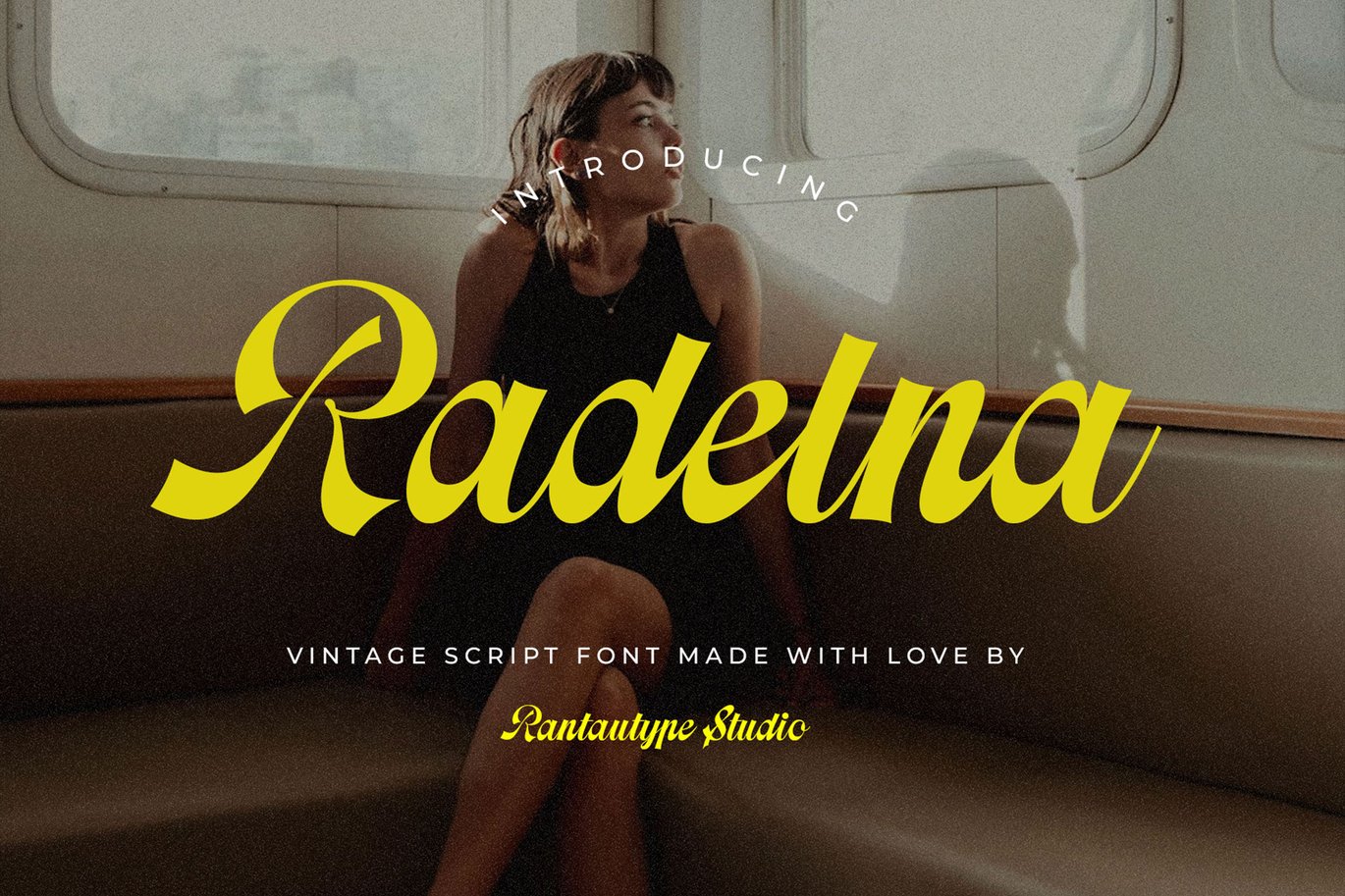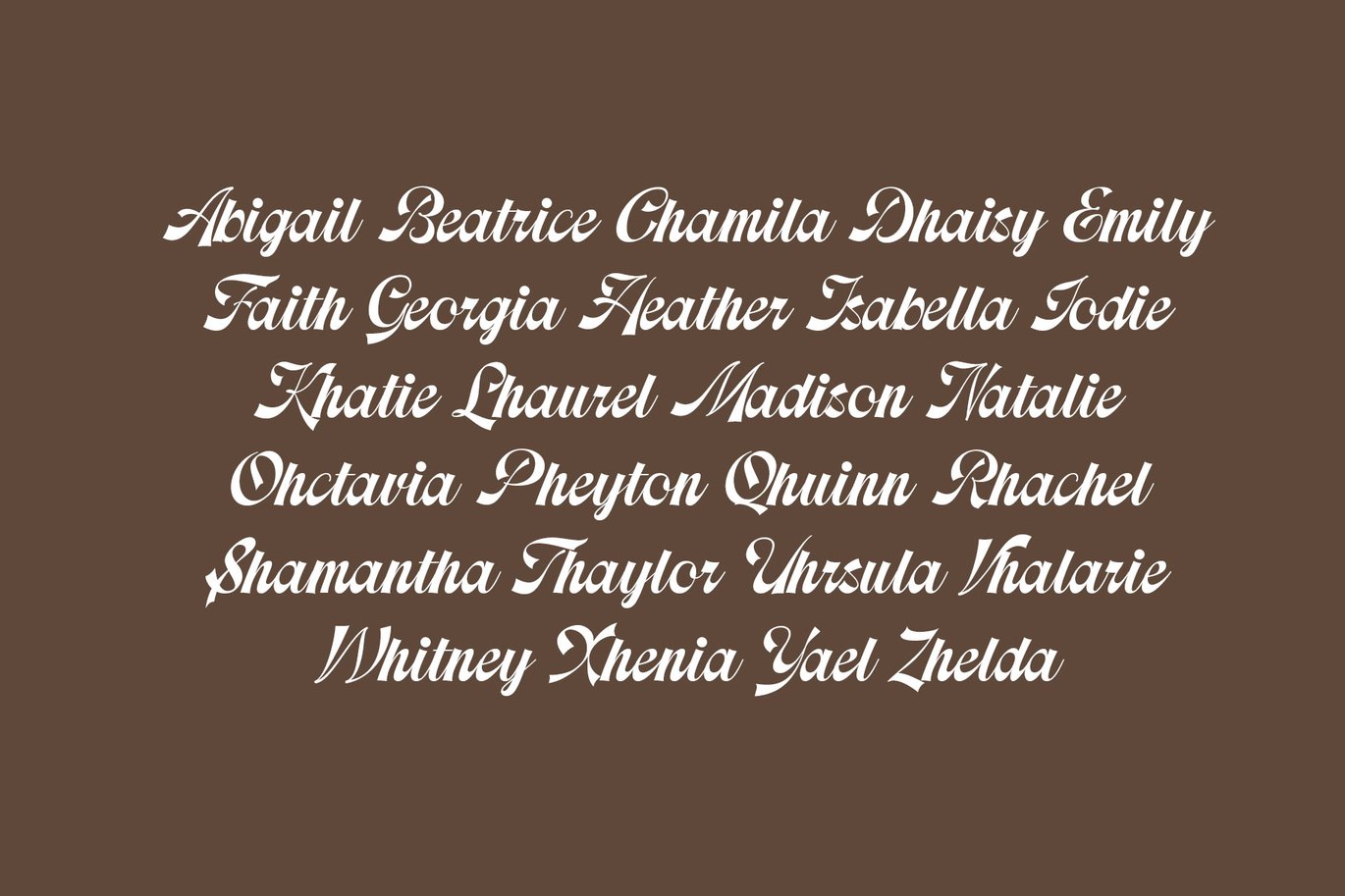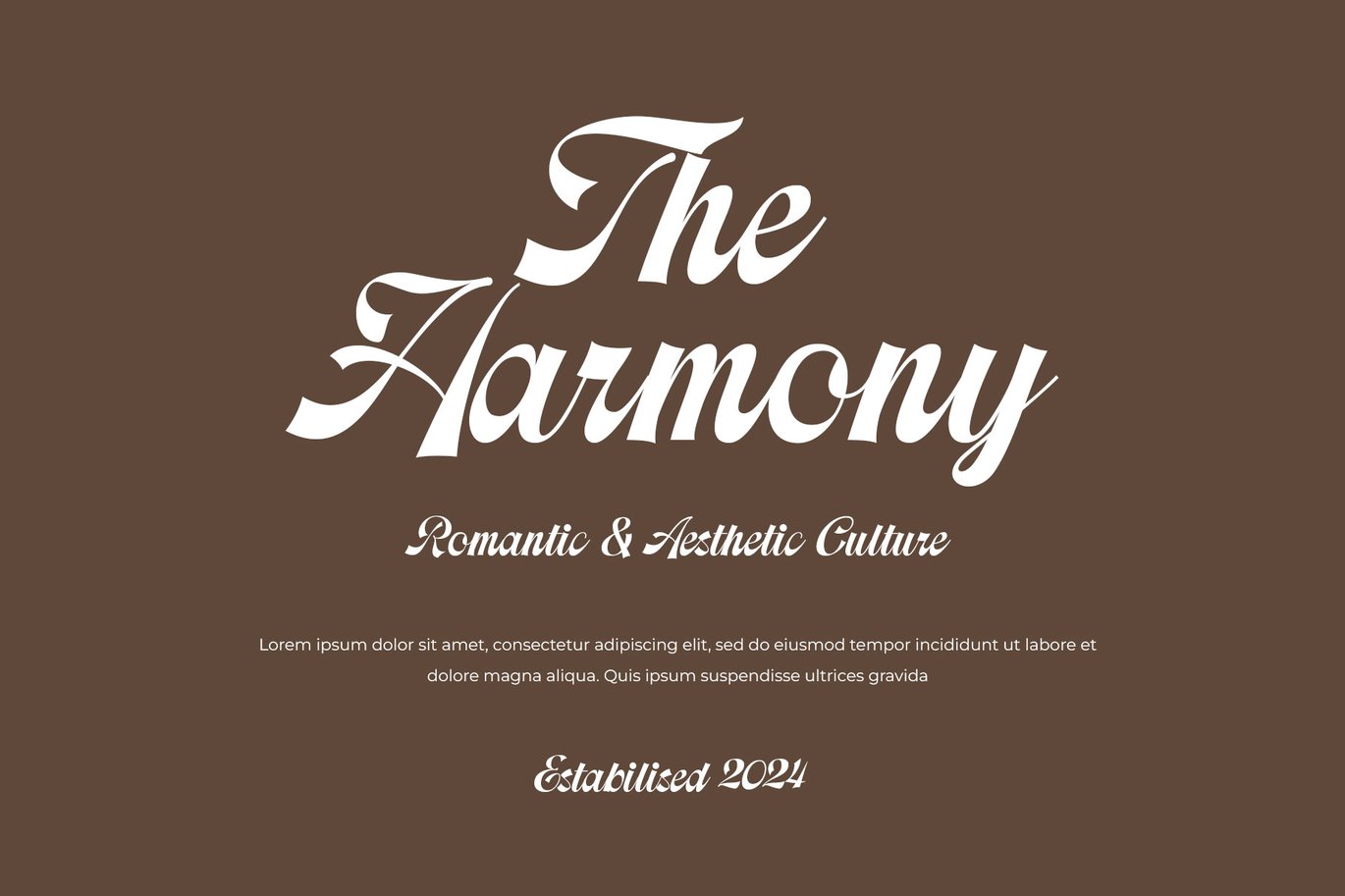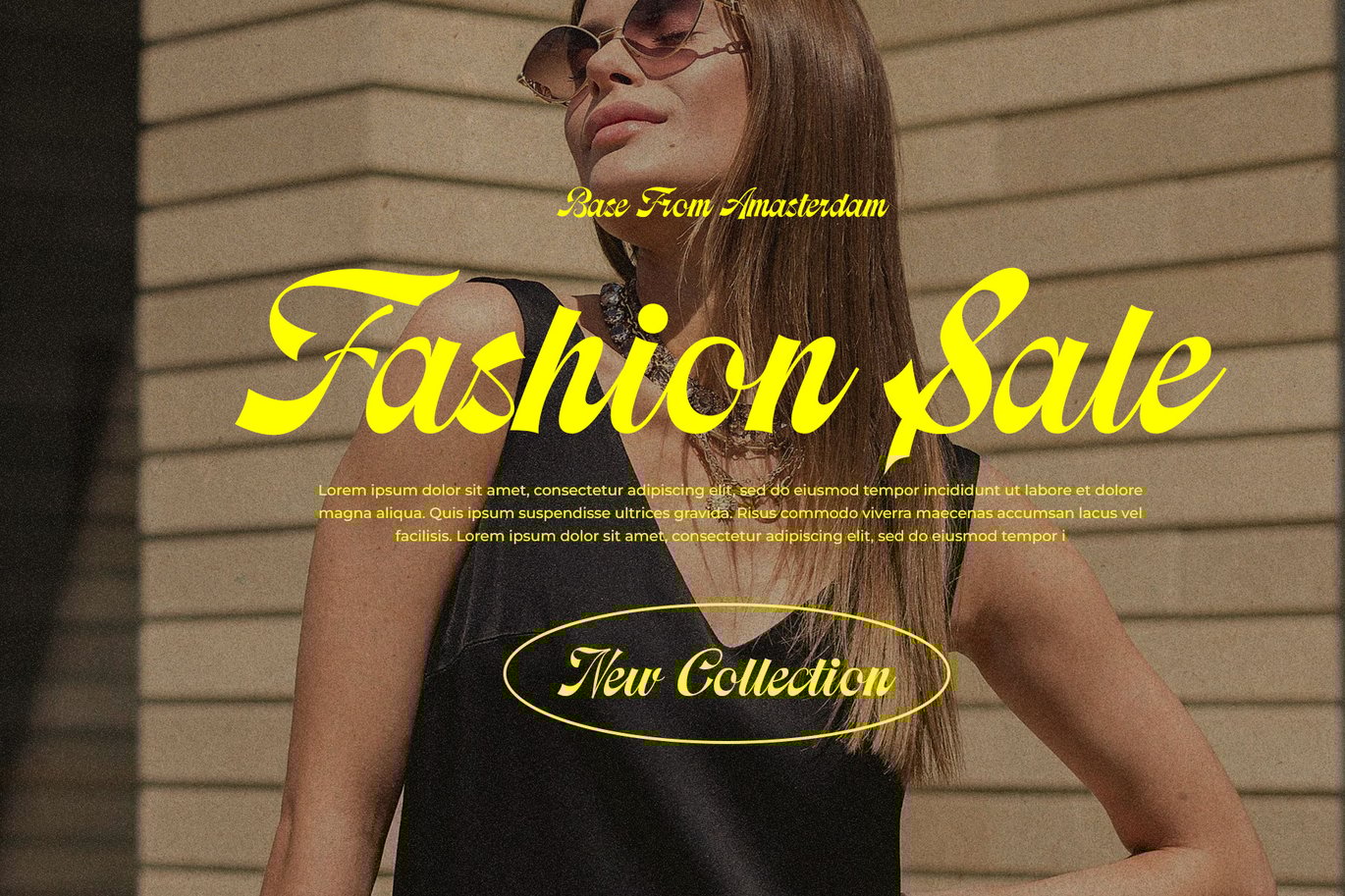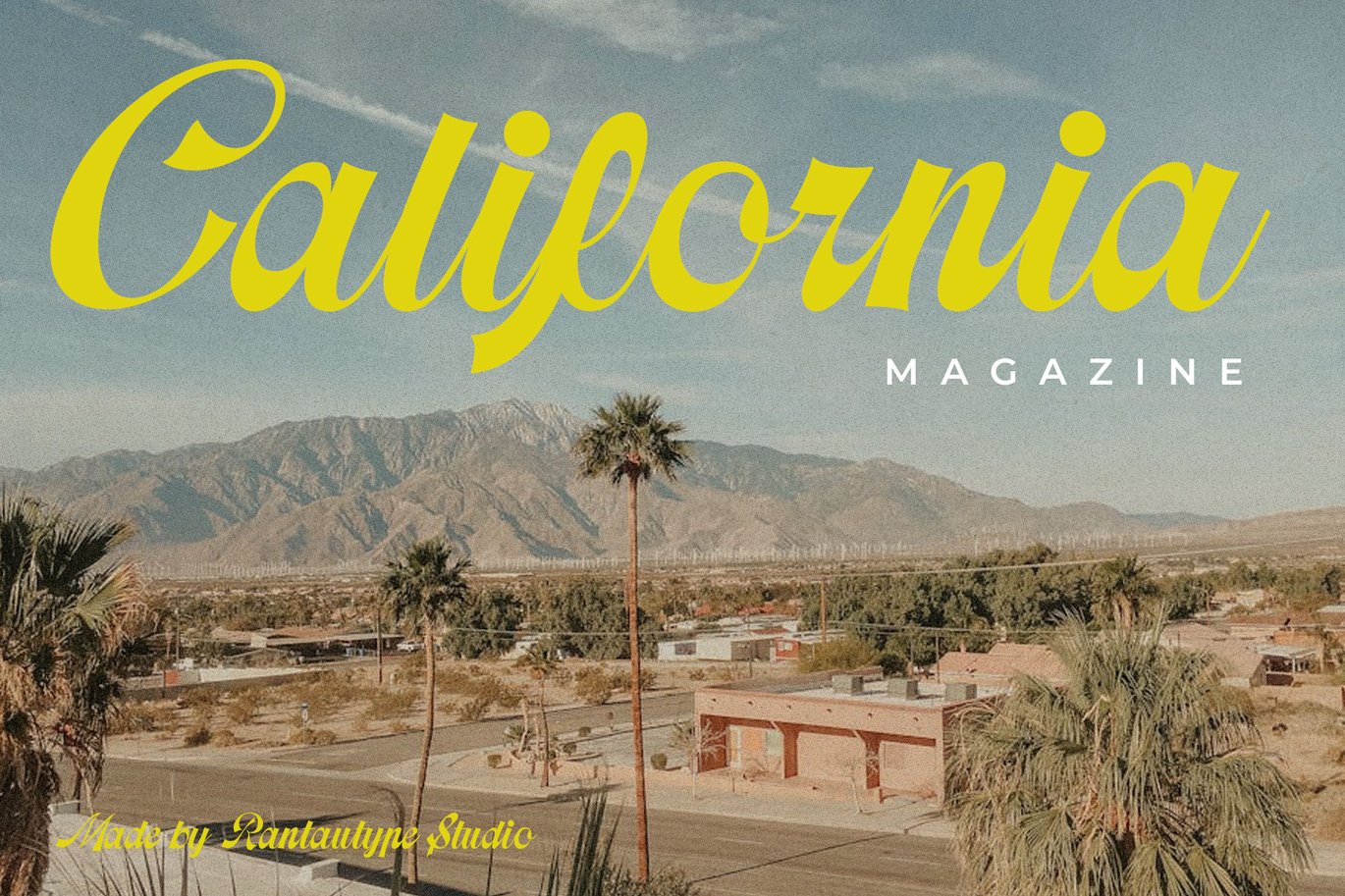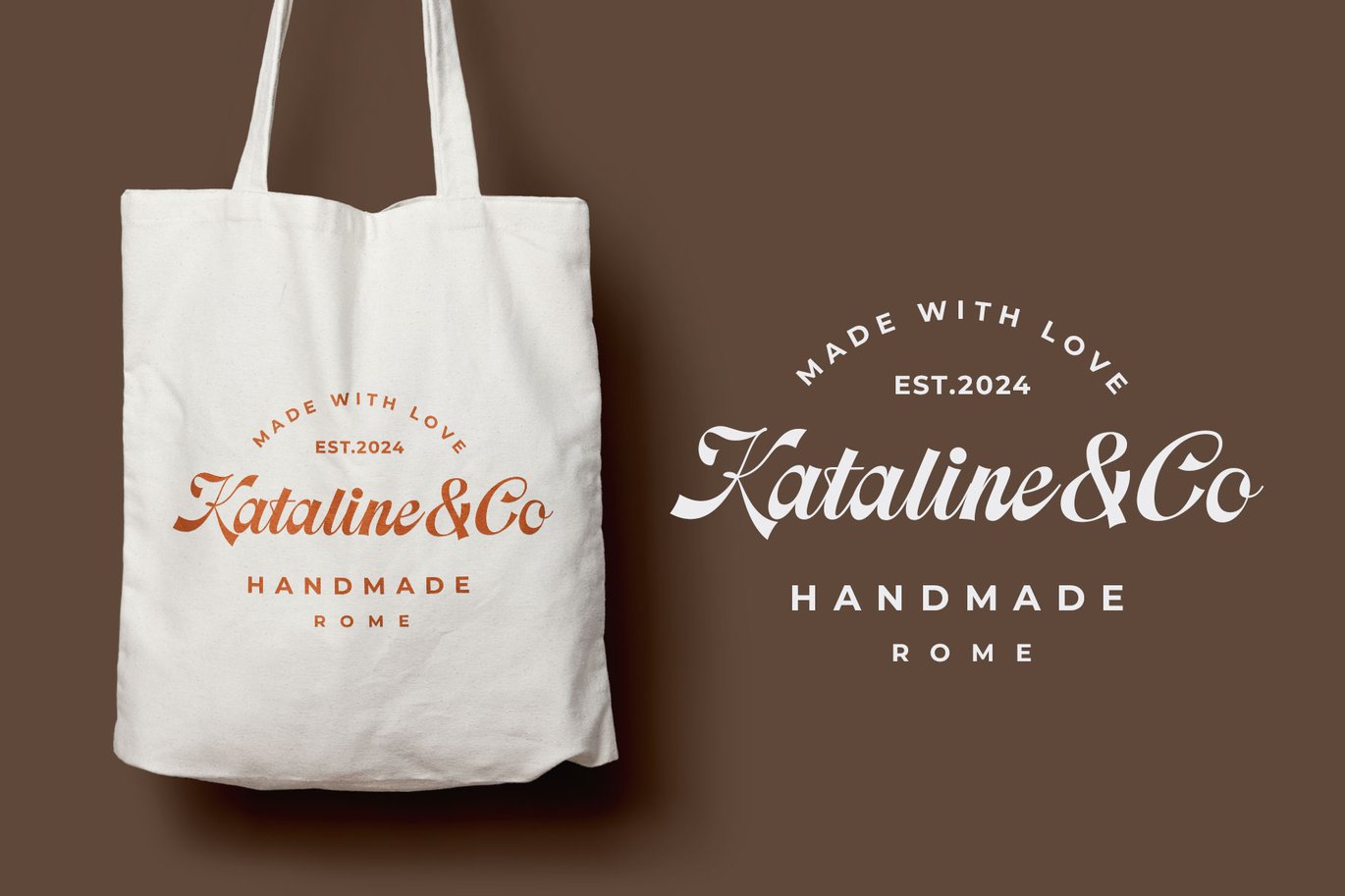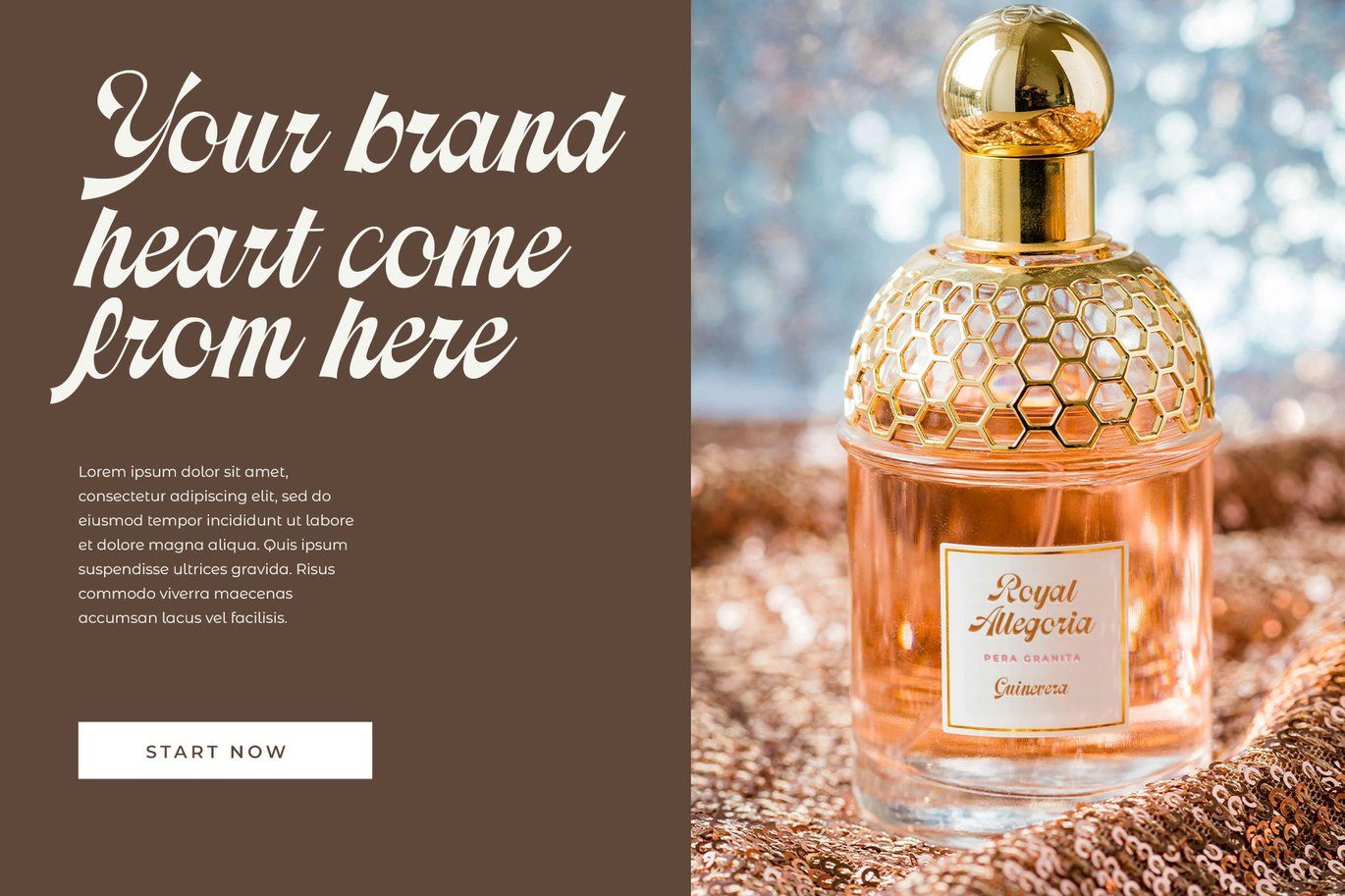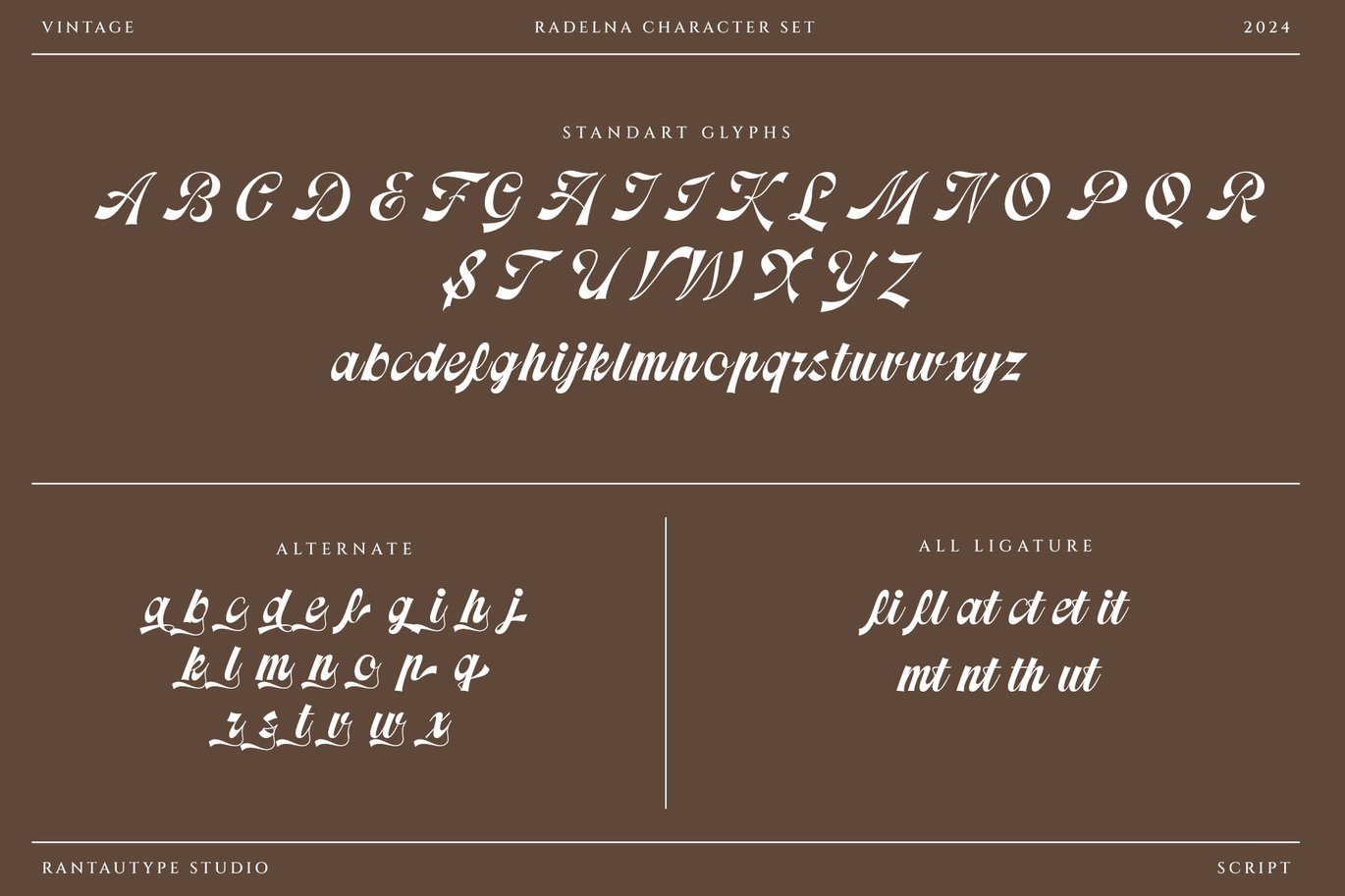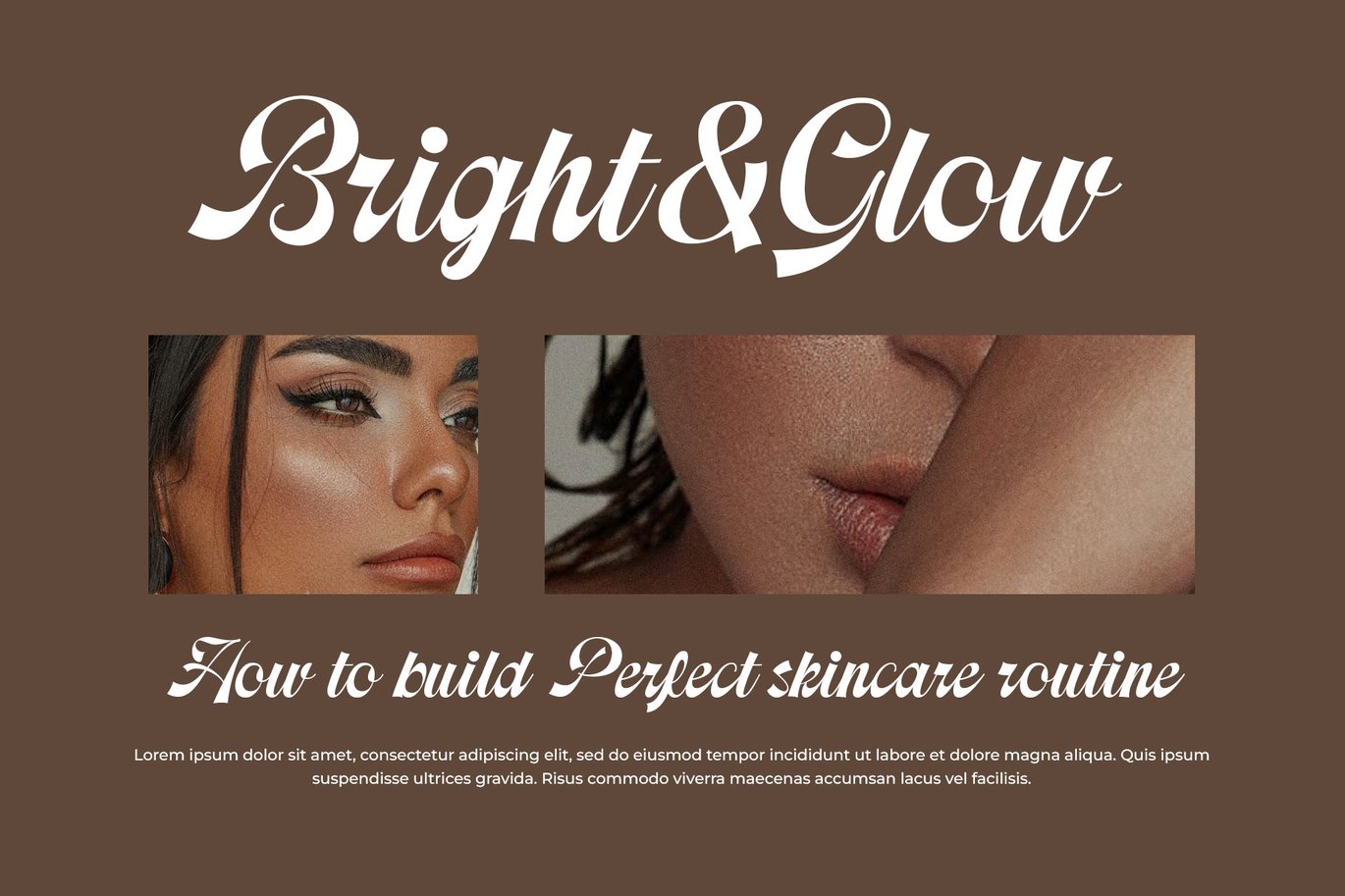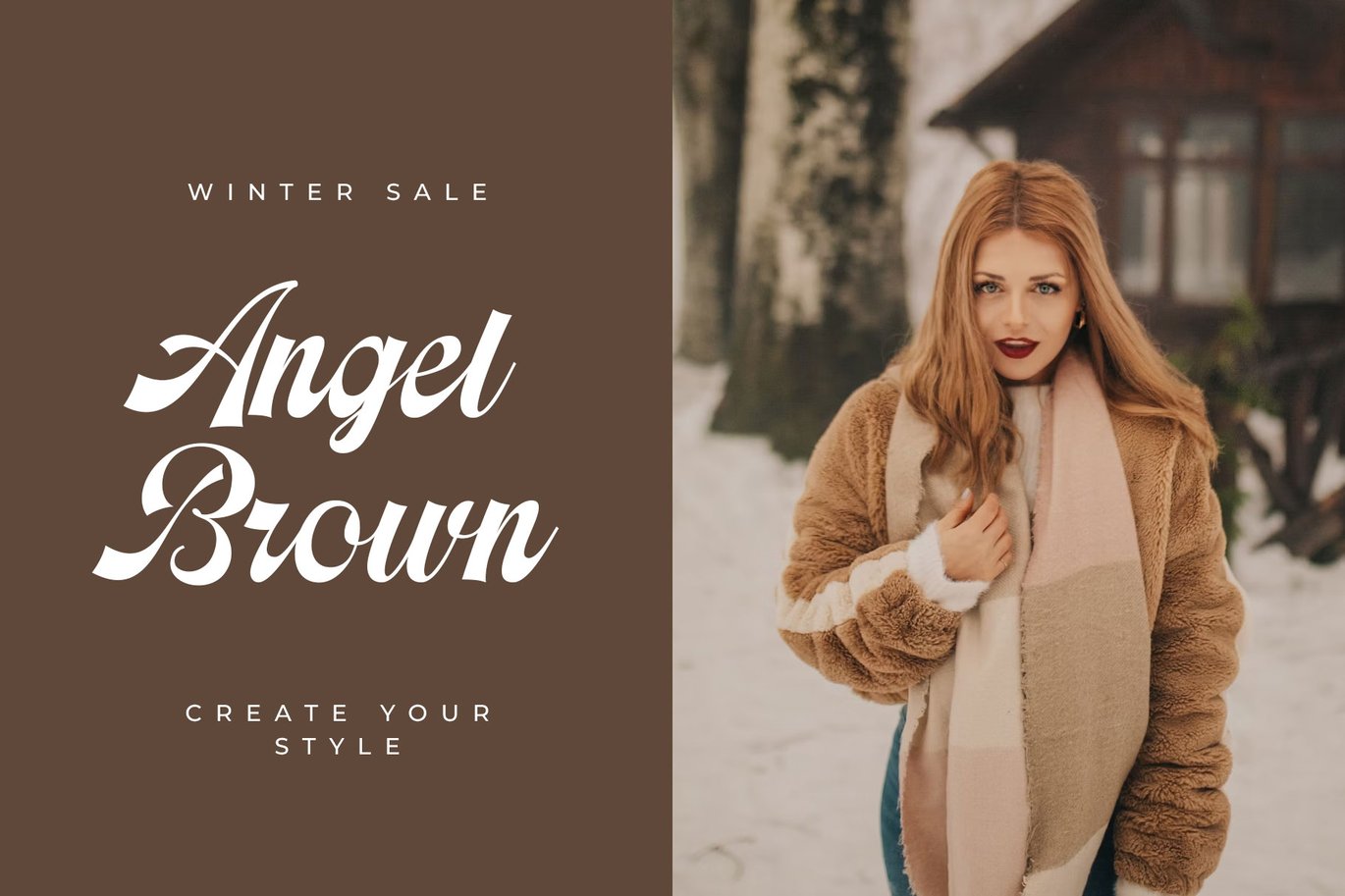
Radelna Vintage Script Font
Radelna is classic script font inspire by vintage visual design. Radelna is a beautiful choice for any creative endeavor, creating, modern, chic, lifestyle design such as logotype, title, cover, branding, invitations, wedding designs, display and magazine, social media posts, advertisements, printed quotes, product packaging, corporate brand, product designs, labels, photography, watermarks, special events and any other project with vintage touch.